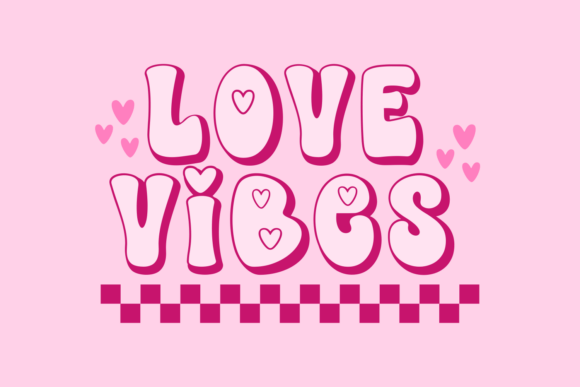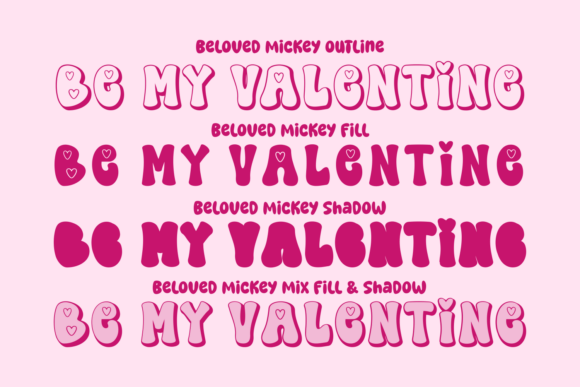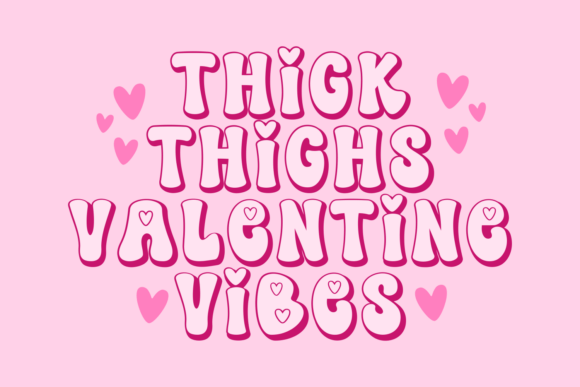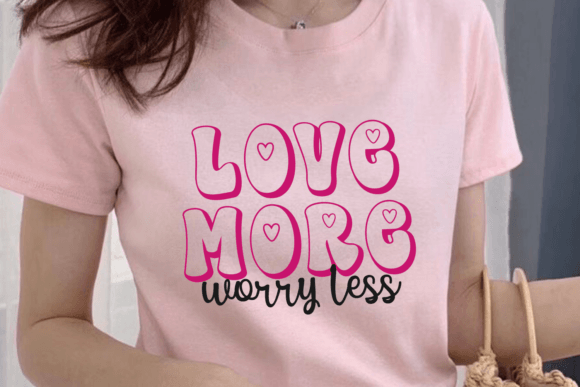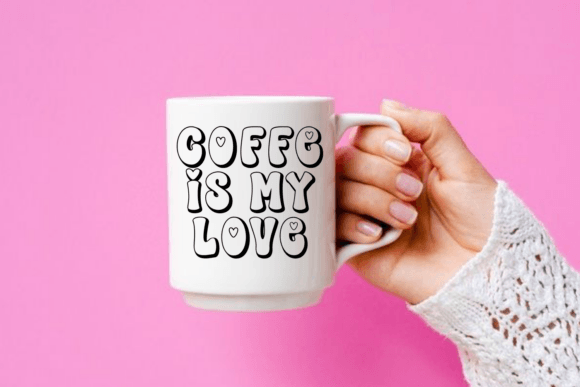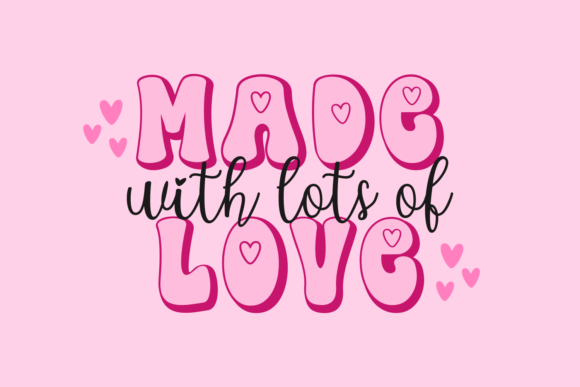
Bring a Touch of Whimsy to Your Designs
Have you ever found yourself in a creative rut, struggling to find the perfect font to match your project’s playful vibe? That’s exactly where the Beloved Mickey Font comes in – a delightful, retro-inspired Valentine font that’s sure to capture hearts.
This charming font, available in three captivating styles – outline, fill, and shadow – is perfect for adding a unique touch to your personal products, crafts, and designs. From mugs and t-shirts to party cards and wall decorations, the Beloved Mickey Font is an invaluable asset for designers looking to infuse their creations with a playful spirit. Its versatility and charm make it a must-have for anyone looking to add a touch of whimsy to their work.
Beloved Mickey Font Key Features
- Font Family: Beloved Mickey is a custom, hand-drawn font designed to resemble Mickey Mouse’s signature style.
- Size: The font family includes multiple weights and styles, ranging from Extra Light to Extra Bold, allowing for a wide range of design applications.
- Resolution: Optimized for high-resolution displays, making it suitable for use in digital media, such as websites, social media, and mobile apps.
- Unique Characteristics: The font’s hand-drawn design and playful, whimsical feel make it perfect for creating a nostalgic, retro aesthetic in branding, advertising, and entertainment projects.
Beloved Mickey Font Review
The Beloved Mickey Font is a cute, hand-drawn sans-serif typeface designed to evoke a sense of nostalgia and playfulness. ✨ One of the standout features of this font is its versatility – it works well for a wide range of projects, from children’s book covers to social media graphics and even branding materials.
The font’s rounded edges and whimsical feel make it perfect for conveying a sense of fun and approachability. ✨ Additionally, the font’s OpenType features allow for some really cool ligatures and swashes, which can add an extra layer of personality to your designs.
While the Beloved Mickey Font is generally well-suited for a variety of projects, there are some potential drawbacks to consider. ⚠️ One of the main limitations is that the font can be a bit difficult to read at smaller font sizes, particularly in print materials.
Another limitation is that the font’s hand-drawn feel can sometimes make it difficult to achieve a consistent look and feel across different elements of a design. ⚠️ This can be especially challenging for designers who are looking for a more polished, high-end aesthetic.
Overall, the Beloved Mickey Font is a fun and playful typeface that can add a lot of personality to your designs. While it may have some limitations, it’s well-suited for a wide range of projects and can be a great addition to any designer’s toolkit.
- Cute, hand-drawn sans-serif typeface
- Versatile and works well for a wide range of projects
- OpenType features with ligatures and swashes
- May be difficult to read at smaller font sizes
- Can be challenging to achieve consistent look and feel
The Beloved Mickey Font is ideal for creating whimsical and playful designs, such as:
- Food truck and cafe branding.
- Family and pet photography.
- Wedding and event stationery.